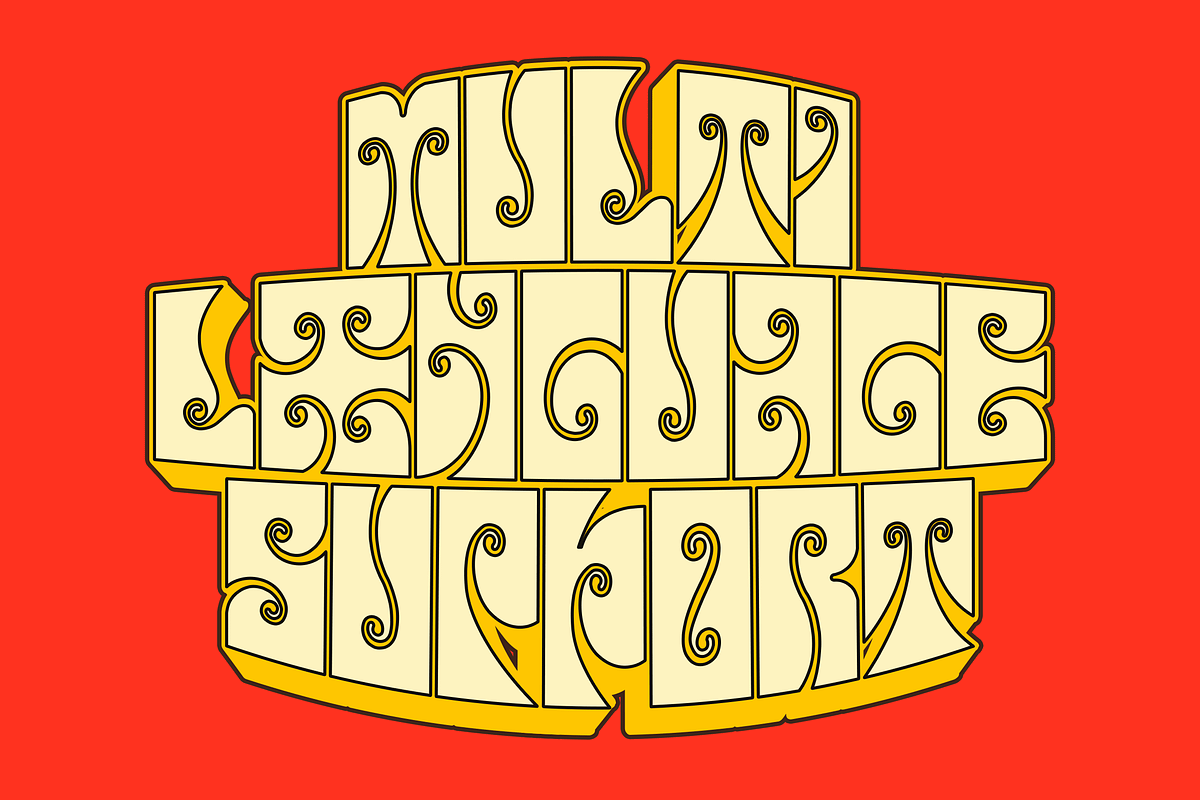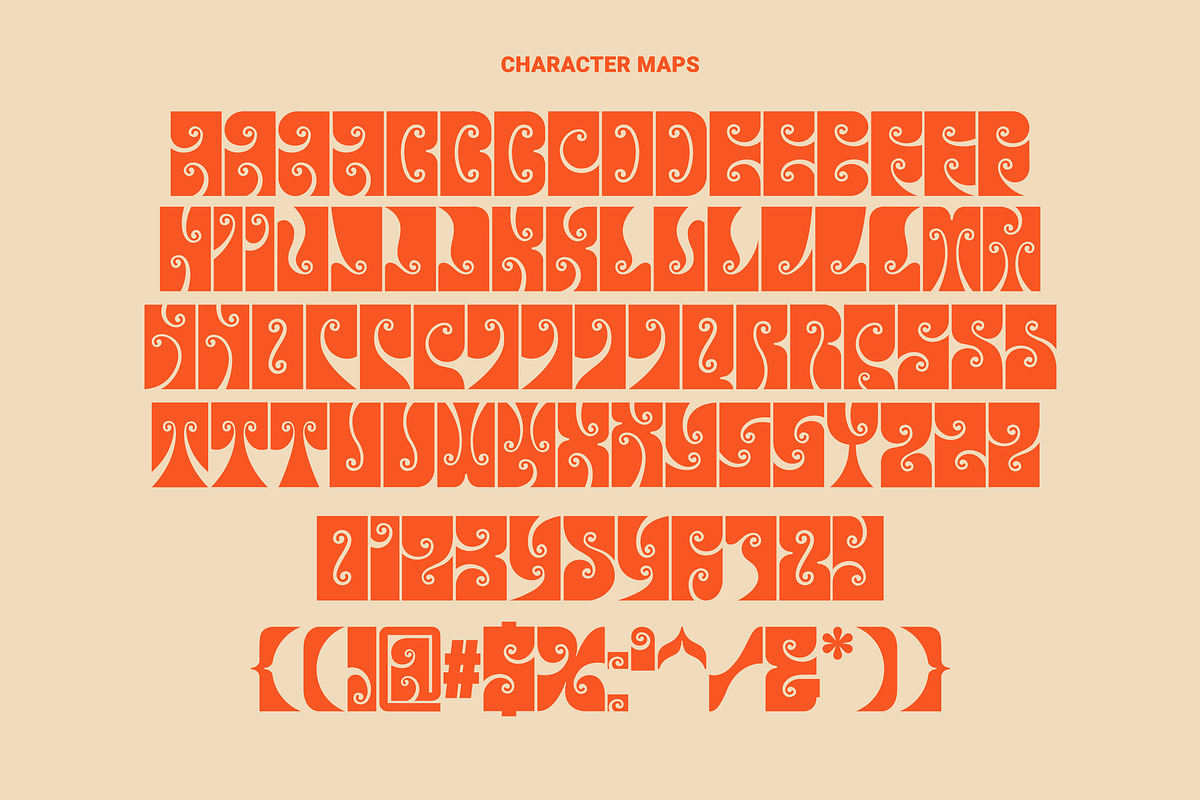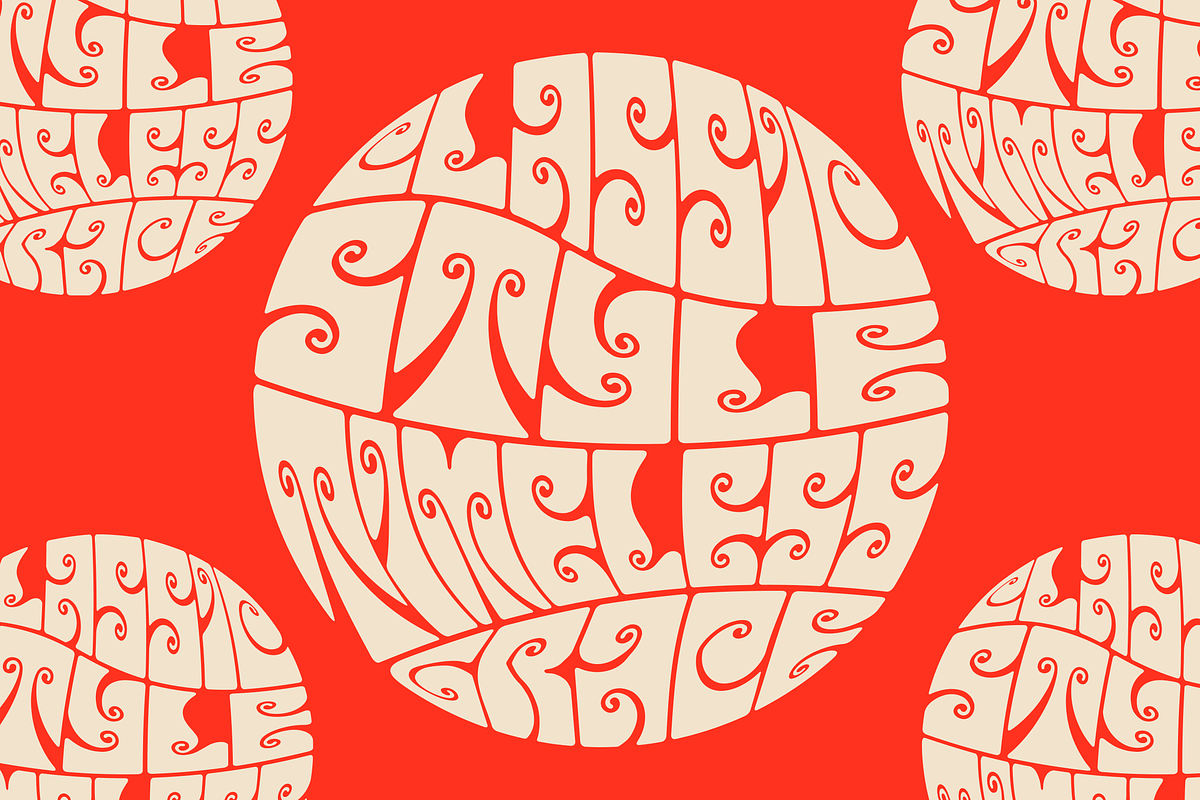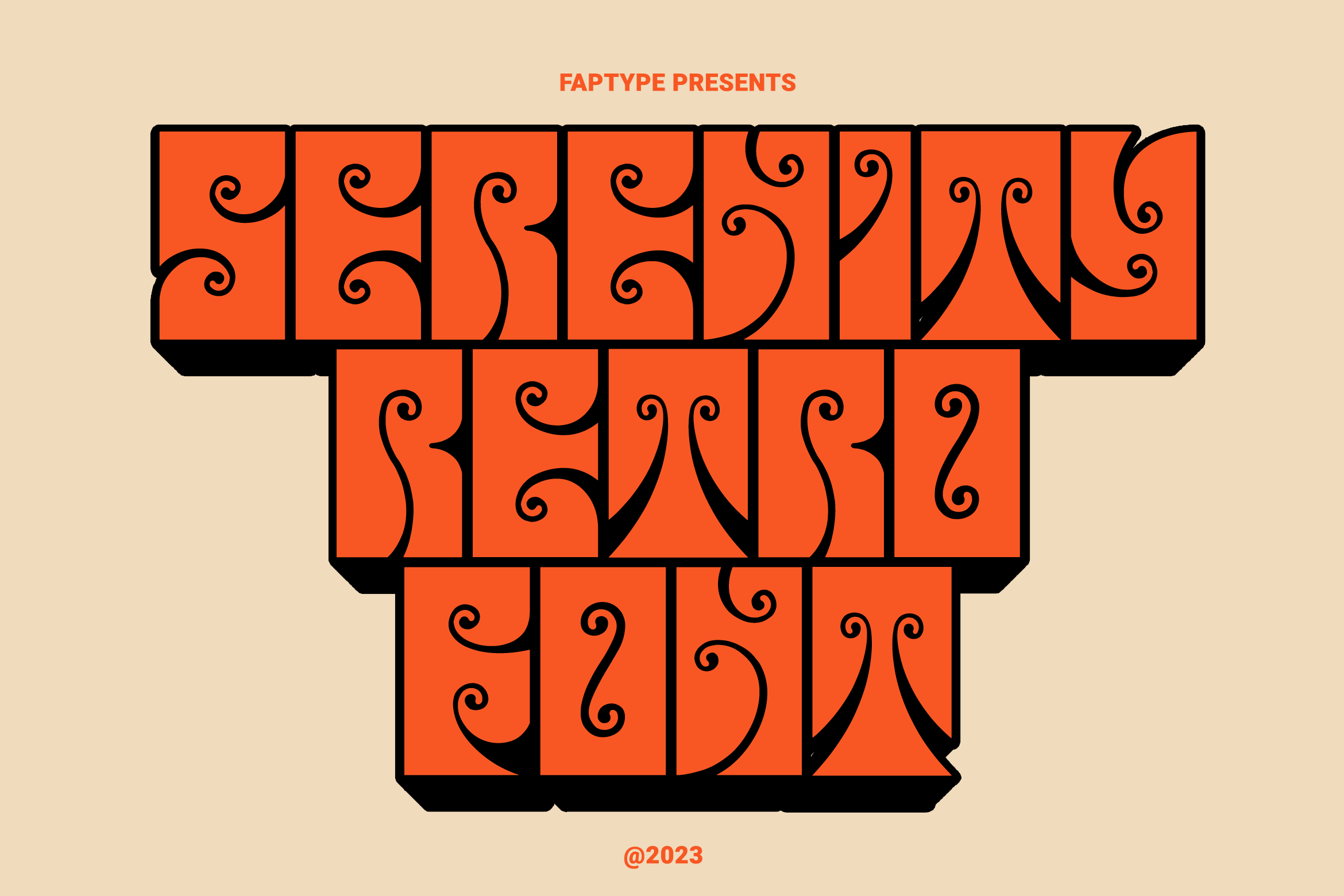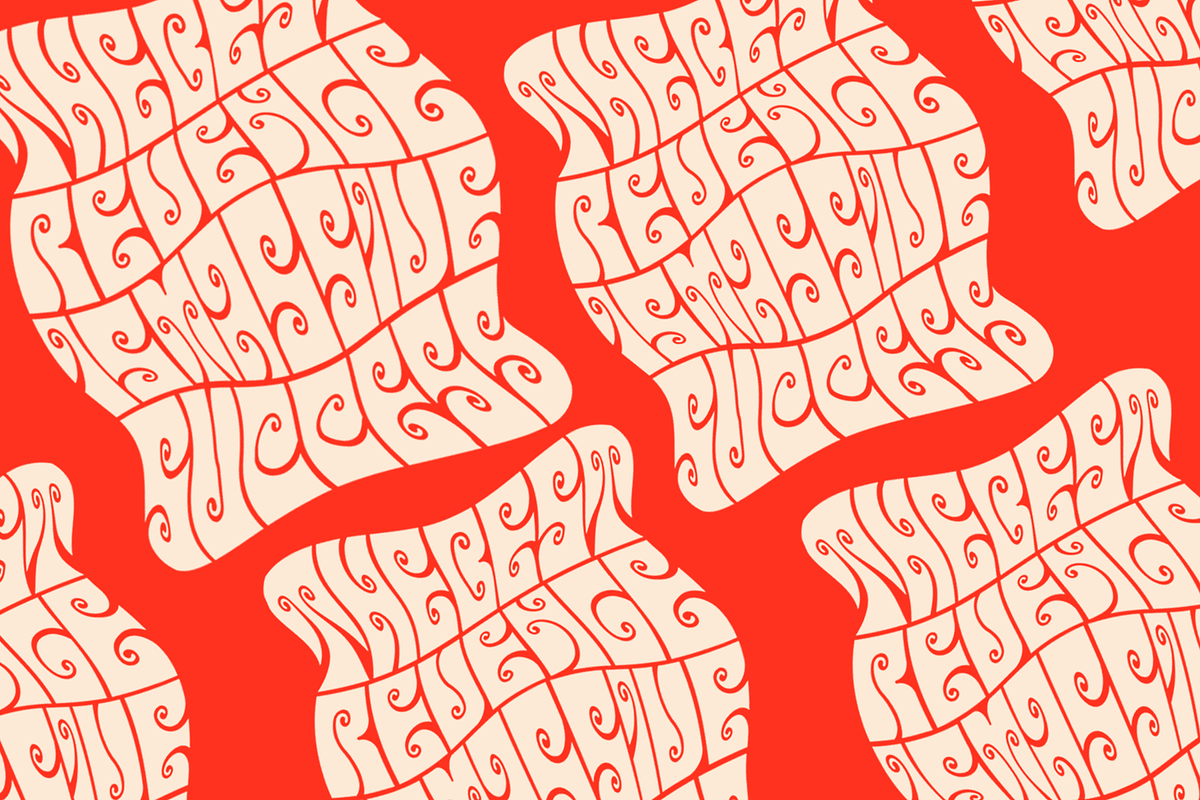
Serenity | Squared Retro Font
Introducing "Serenity" – a captivating vintage font that elegantly blends the charm of yesteryears with a contemporary flair. With its distinctive squared appearance, "Serenity" pays homage to the classic typography of vintage eras while embracing modern design sensibilities. This font is a visual journey that invites you to explore the fusion of timeless aesthetics and innovative creativity.
The allure of "Serenity" extends beyond its squared look. With an extensive collection of alternates for each character, this font empowers you to infuse your text with a personalized touch. Crafted with meticulous attention to detail, the alternates allow you to experiment and create text that resonates uniquely with your design intent.
Language is a universal bridge, and "Serenity" ensures that your message crosses borders effortlessly. Its multi-language support ensures that your words transcend linguistic barriers, enabling you to communicate effectively across cultures and geographies.
But the innovation doesn't stop there – "Serenity" introduces two additional styles: rounded and extruded. The rounded style adds a softer touch to the font's character, while the extruded style introduces a dynamic depth that draws the eye. The magic happens when you combine the regular version with the extruded style, effortlessly creating stunning retro 3D designs that capture the essence of nostalgia in a modern context.
"Serenity" isn't just a font; it's a toolkit that empowers you to express your creativity in unprecedented ways. From vintage-themed branding to captivating signage, packaging, and more, "Serenity" offers the versatility you need to create designs that transcend time and captivate the imagination. Immerse yourself in the art of design evolution with "Serenity," and redefine the boundaries of visual storytelling with every stroke of the font.
Serenity features:
- A full set of uppercase
- Multilingual language support
- OpenType Features
- +326 Total Glyphs
- Up to 45 Alternate Characters